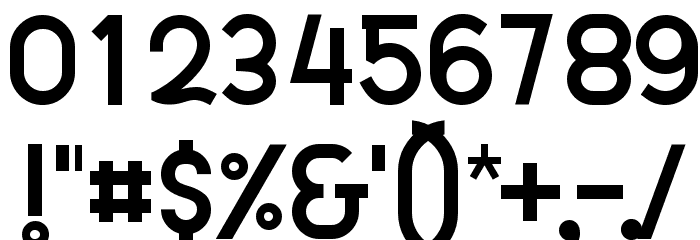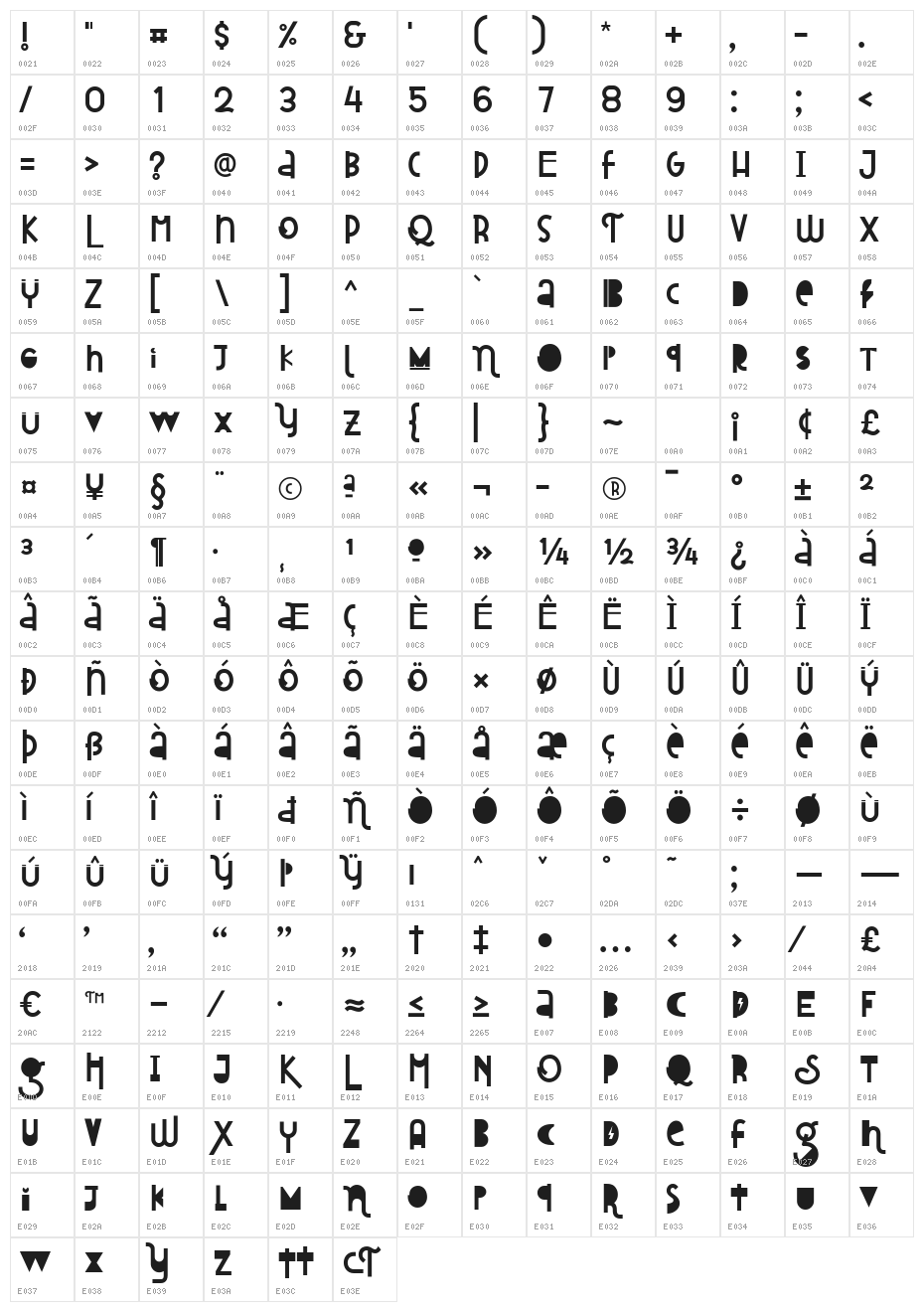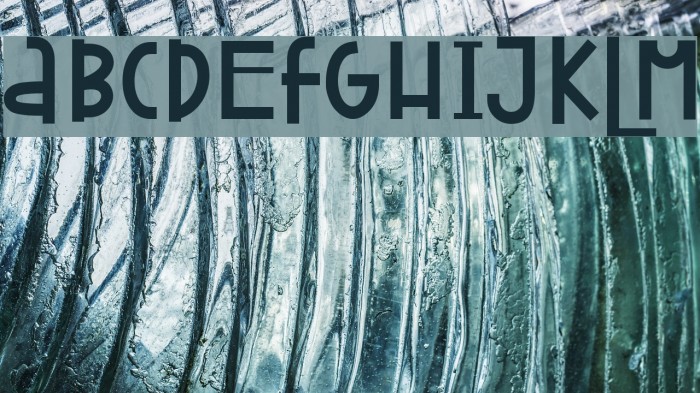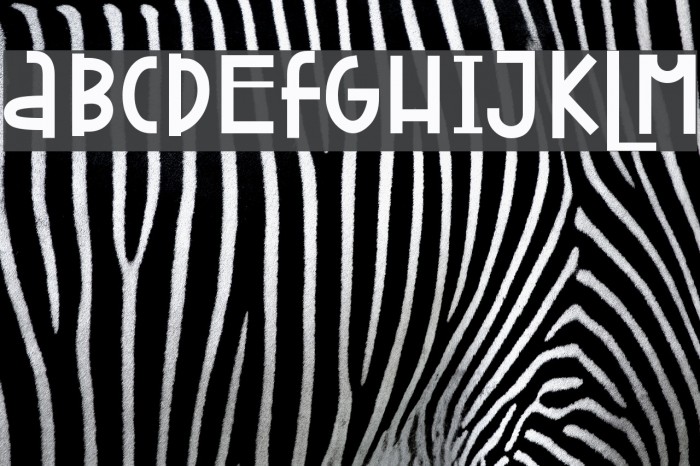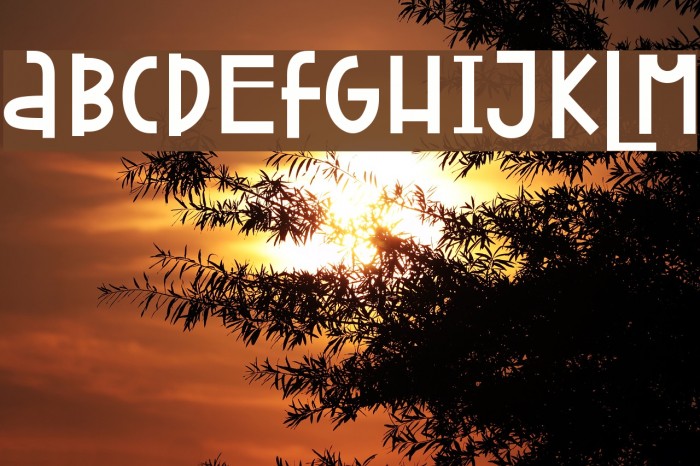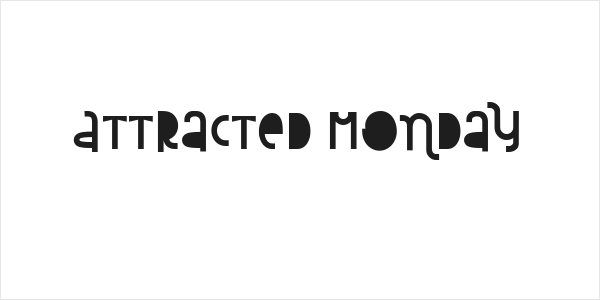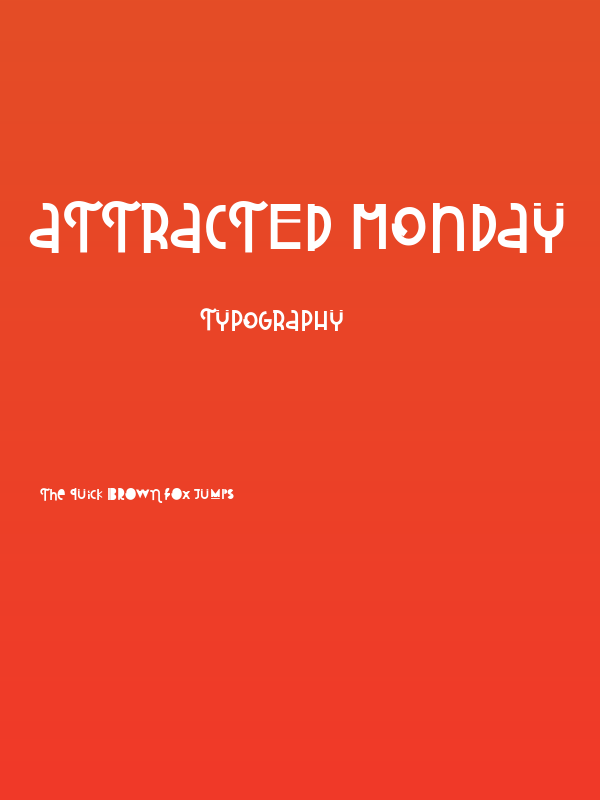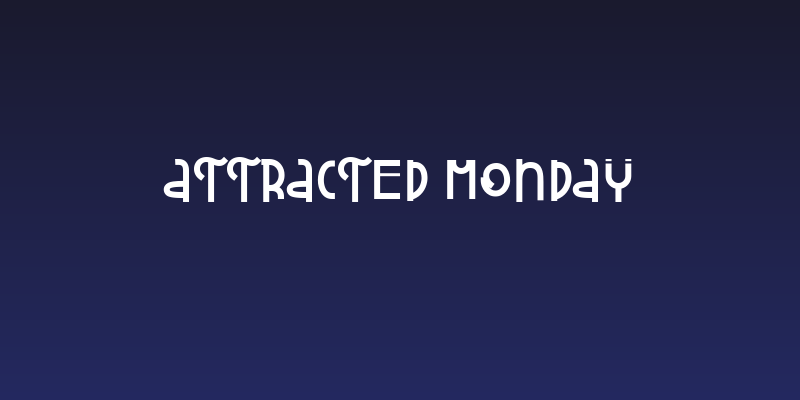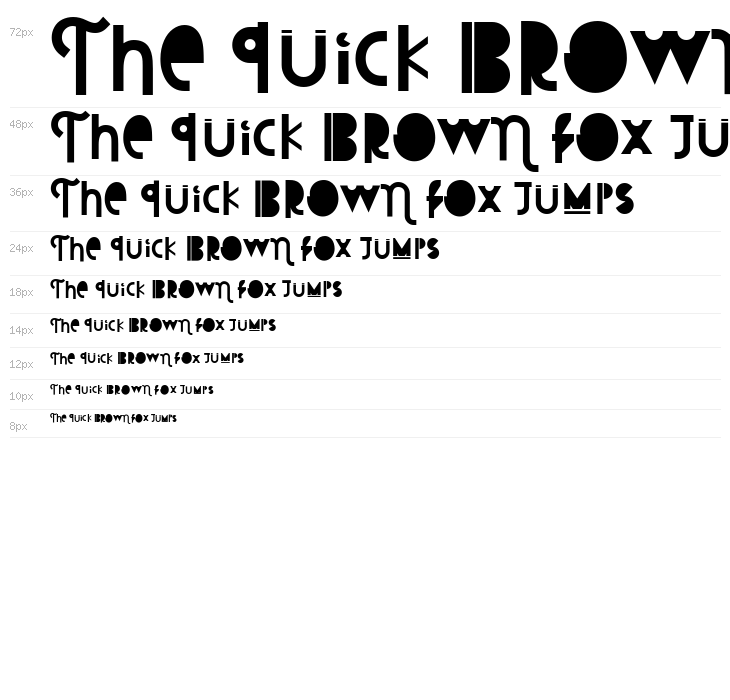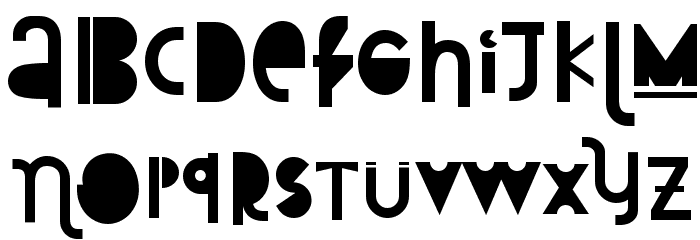
Attracted Monday Font
Attracted Monday Description
This font presents a bold and striking appearance with its unique and artistic letterforms. Each character is crafted with a playful yet structured design, featuring a mix of sharp angles and smooth curves. The uppercase letters are particularly distinctive, with some incorporating unexpected geometric elements that add a modern flair. The lowercase letters maintain a consistent style, complementing the uppercase with their own subtle quirks. Numbers and special characters are designed to match the overall aesthetic, ensuring a cohesive look across all text. This font is ideal for projects that require a bold statement and a touch of creativity.
| Proposed Projects | Ideal for branding, posters, album covers, and creative advertising campaigns. |